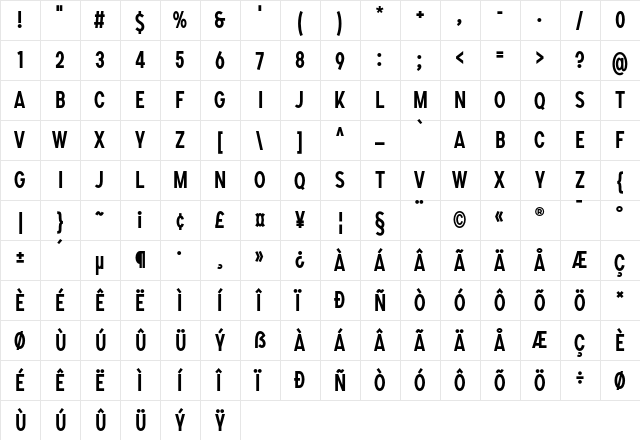
SONGER Condensed Medium
SONGER Condensed is a composed and adaptable typeface that performs quietly and consistently across a wide range of design contexts. Its narrow stance lets it pack a punch even in space-constrained designs.
Pro Tip: Pair SONGER Condensed with a font of contrasting weight or personality to build a more expressive typographic hierarchy.